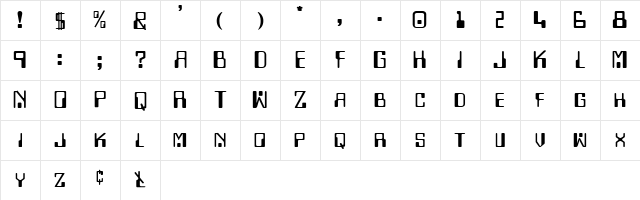
Retail Normal
Design Context for Retail
Retail is a composed and adaptable typeface that performs quietly and consistently across a wide range of design contexts.